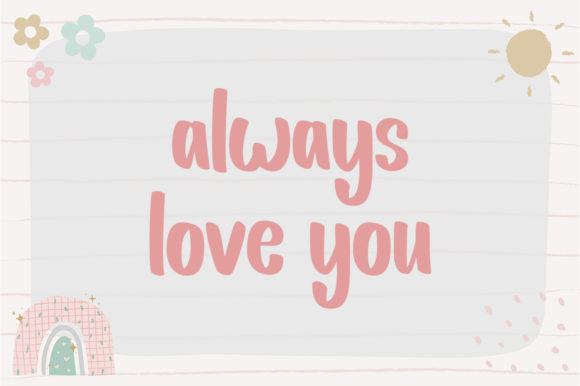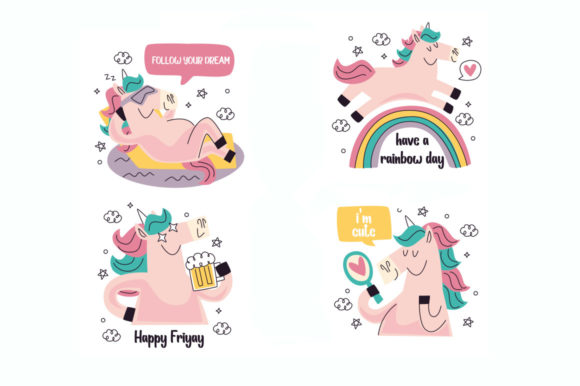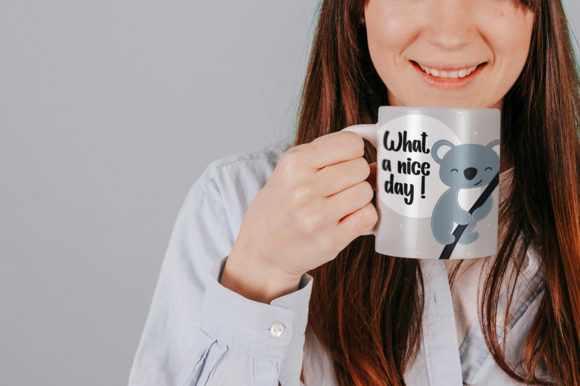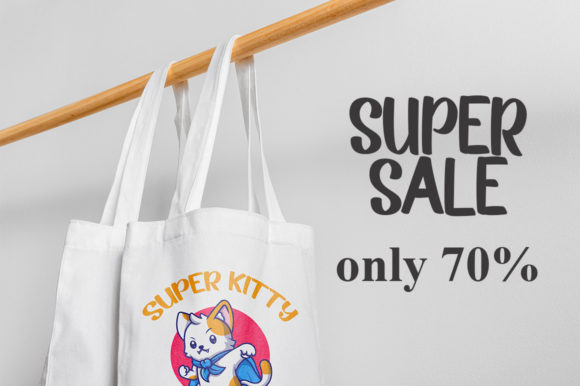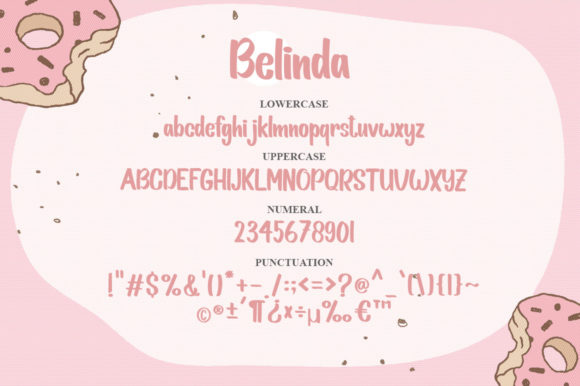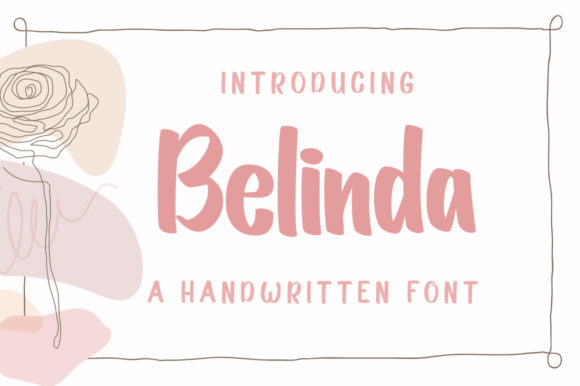
Introducing Belinda Font: Elevate Your Creative Projects with a Casual and Trendy Display Font
Are you a designer, crafter, or DIY enthusiast looking for a font that can add a touch of personality to your creative projects? Look no further than Belinda Font, a casual and trendy display font that’s perfect for making your ideas stand out. In this article, we’ll dive into the features and benefits of Belinda Font, and explore how you can use it to turn your creative ideas into true pieces of art.
What is Belinda Font?
Belinda Font is a stylish and modern display font that’s designed to add a touch of elegance and sophistication to your creative projects. With its casual and trendy vibe, Belinda Font is perfect for a wide range of applications, from Instagram posts and stories to calligraphy scripts and DIY projects.
Key Features of Belinda Font
- Casual and Trendy Design: Belinda Font features a unique and stylish design that’s perfect for making a statement. Its casual and trendy vibe makes it ideal for creative projects that require a touch of personality.
- Display Font: Belinda Font is a display font, which means it’s designed to be used at larger sizes, making it perfect for headlines, titles, and other display text.
- Multipurpose: Belinda Font can be used for a wide range of creative projects, from Instagram posts and stories to calligraphy scripts and DIY projects.
- Easy to Read: Despite its stylish design, Belinda Font is easy to read, making it perfect for use in a variety of creative projects.
How to Use Belinda Font
Belinda Font is a versatile font that can be used in a variety of creative projects. Here are some ideas to get you started:
- Instagram Posts and Stories: Add a touch of personality to your Instagram posts and stories with Belinda Font. Use it to create eye-catching headlines, captions, and quotes.
- Calligraphy Scripts: Belinda Font is perfect for calligraphy scripts, making it a great choice for DIY projects, such as hand-lettered signs, cards, and invitations.
- DIY Projects: Use Belinda Font to add a touch of personality to your DIY projects, such as crafts, scrapbooking, and other paper crafts.
- Graphic Design: Belinda Font can also be used in graphic design projects, such as brochures, flyers, and posters.
Benefits of Using Belinda Font
There are many benefits to using Belinda Font in your creative projects. Here are a few:
- Adds Personality: Belinda Font adds a touch of personality to your creative projects, making them stand out from the crowd.
- Versatile: Belinda Font can be used in a wide range of creative projects, making it a great addition to your font library.
- High-Quality Design: Belinda Font features a high-quality design that’s perfect for making a statement.
In conclusion, Belinda Font is a casual and trendy display font that’s perfect for designers, crafters, and DIY enthusiasts. With its unique and stylish design, Belinda Font can add a touch of personality to your creative projects, making them stand out from the crowd. Whether you’re looking to create eye-catching Instagram posts, calligraphy scripts, or DIY projects, Belinda Font is a great choice. So why not give Belinda Font a try and see how it can elevate your creative projects?
Belinda Font is a great addition to any font library, and it’s easy to see why. With its versatility, high-quality design, and ease of use, Belinda Font is a must-have for anyone looking to add a touch of personality to their creative projects.